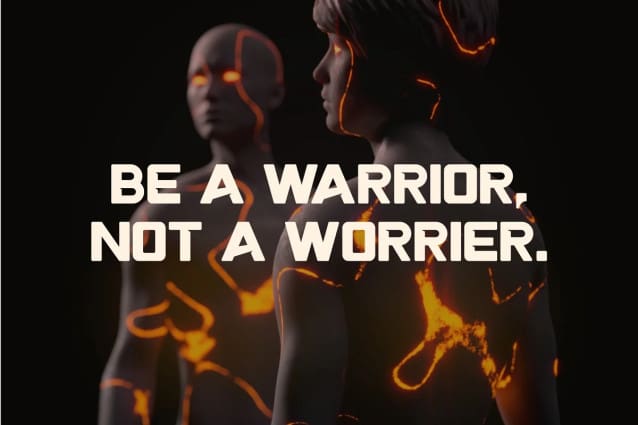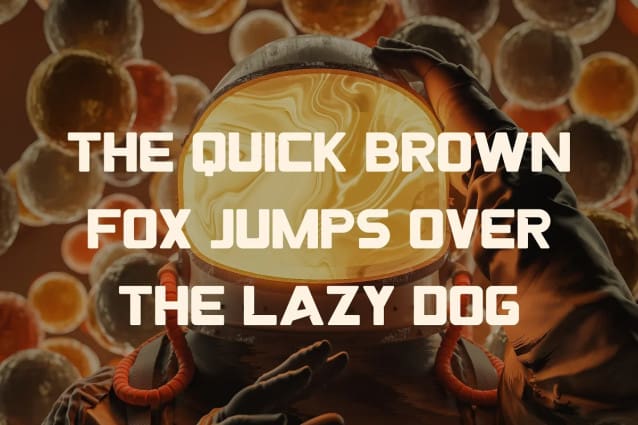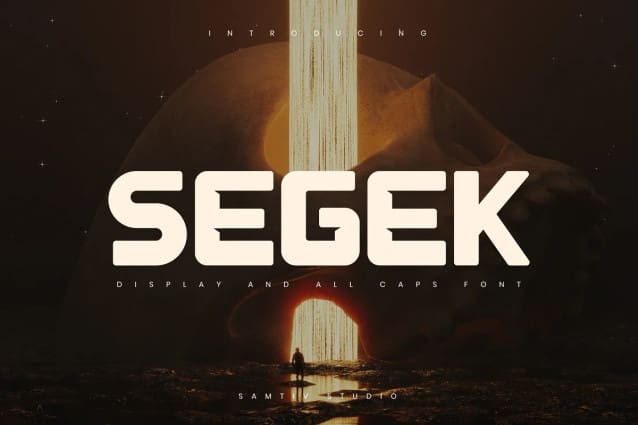
Segek Font
Segek Font is a fantastic sport or futuristic font with wide fonts, modern cutouts, and a dynamic slant. Ideal for titles, running matches, cycling, game logos, monograms, or other modern dynamic text. This future-inspired font will feel timeless with a sci-fi, cyberpunk, or robotic theme. Designed as a fast and dynamic font, but with a slightly different font design, check it out and grab it right away.